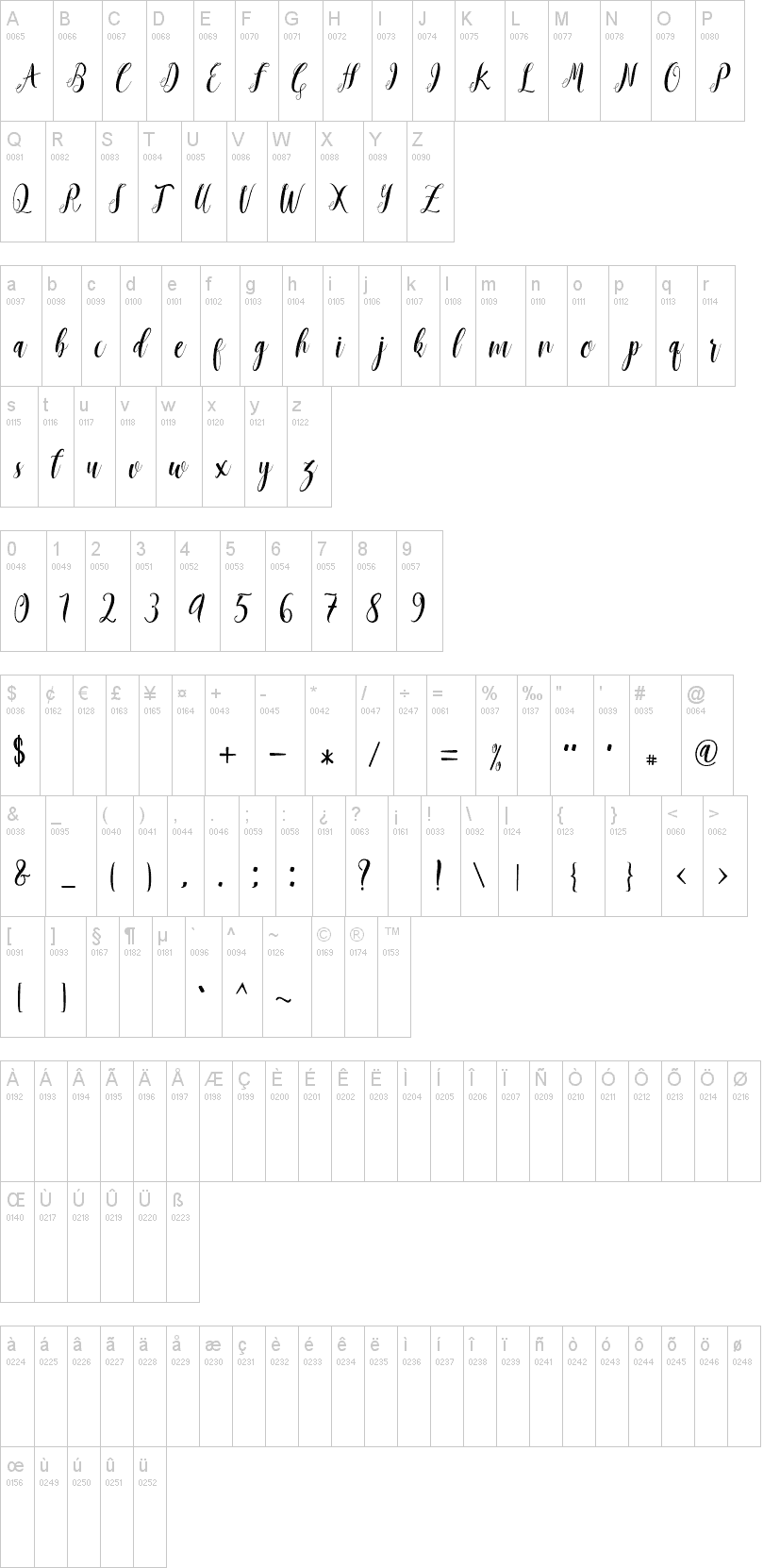
Discover Mantana Font, part of the Calligraphy collection—a versatile and unique font perfect for adding a personal touch to your projects. Download it for free and enjoy crafting designs with style, from invitations to social media posts. This font is available exclusively for personal use, giving you the freedom to create without limits. Unlock your creativity with Mantana Font today!
Mantana Script Font